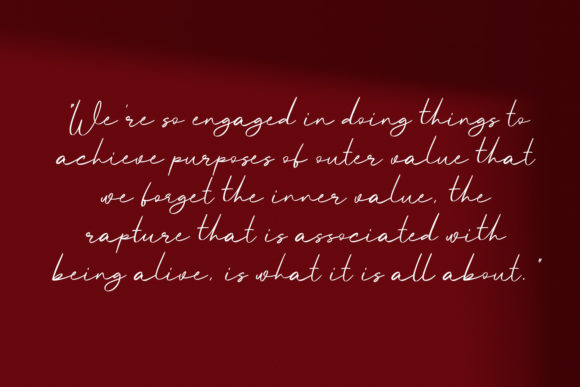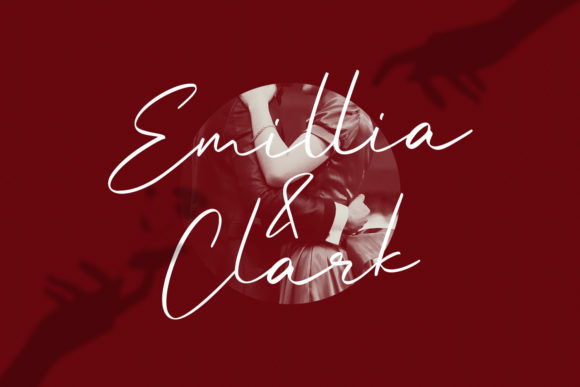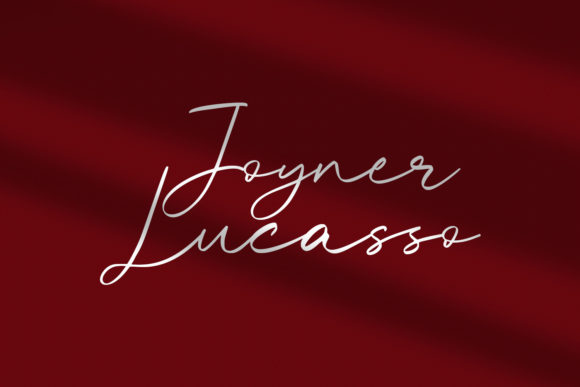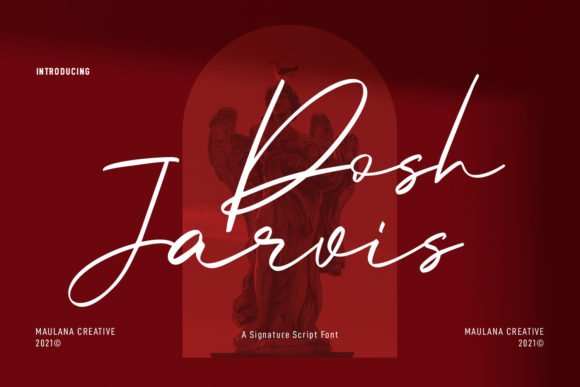
Introduction to Posh Jarvis Font
Posh Jarvis is a thin lettered and graceful script font.
Fall for its ravishing style and use it to create gorgeous wedding invitations, beautiful stationary art, eye-catching social media posts, and much more .
Key Features of Posh Jarvis Font
Why Choose Posh Jarvis Font?
Posh Jarvis Font offers exceptional quality and versatility, making it a valuable addition to your design toolkit. Whether you’re creating for personal projects or commercial use, Posh Jarvis Font delivers professional results.